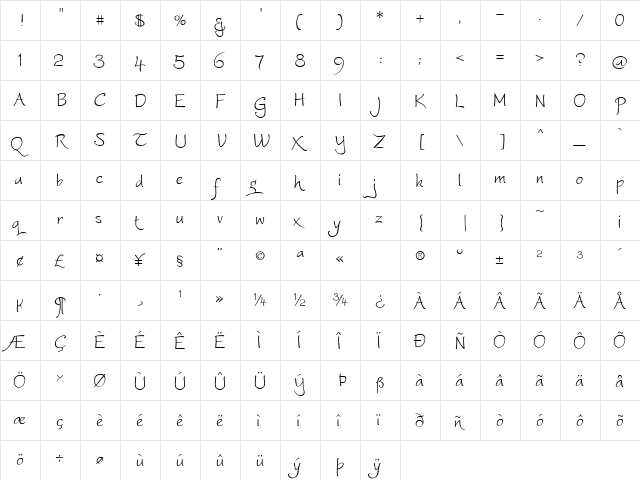
Worstveld Sling Extra 2 Regular
Design Context for Worstveld Sling Extra 2 Typeface
Worstveld Sling Extra 2 is a composed and adaptable typeface that performs quietly and consistently across a wide range of design contexts.